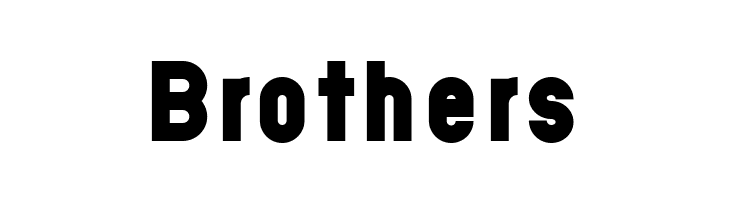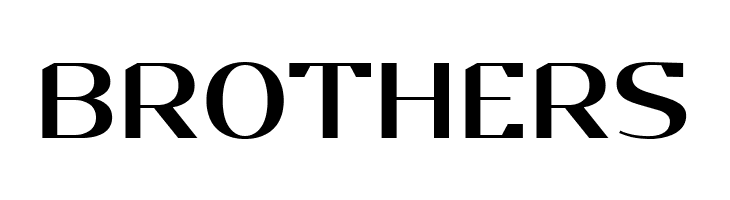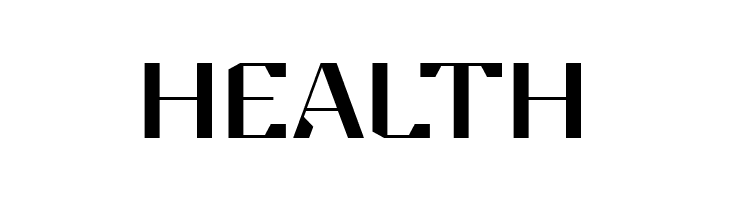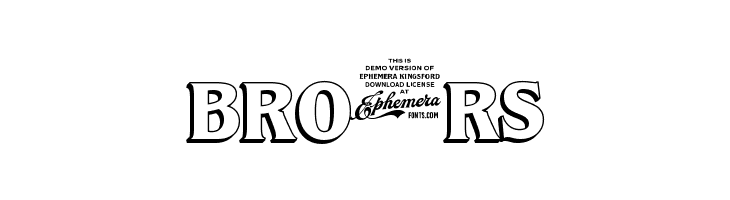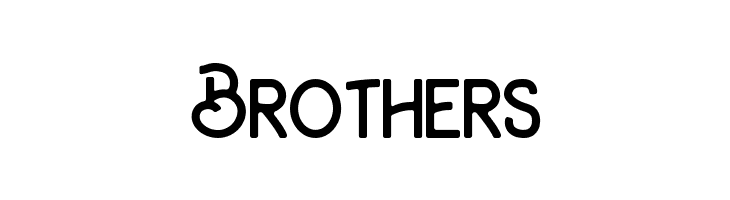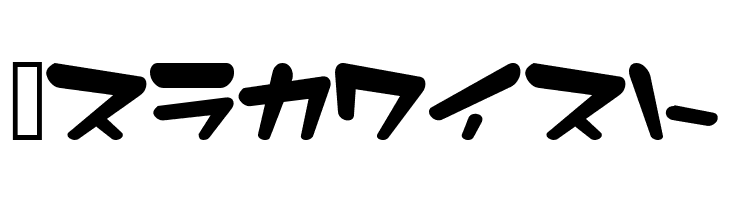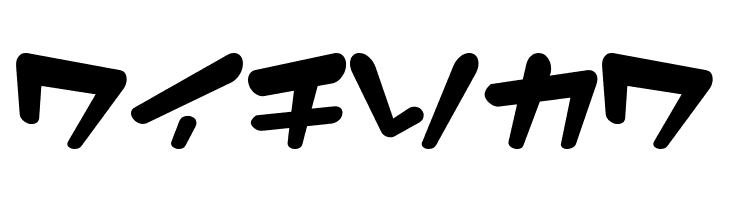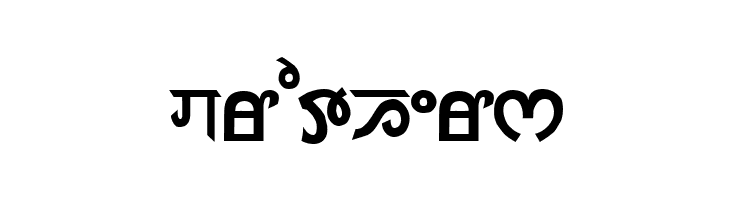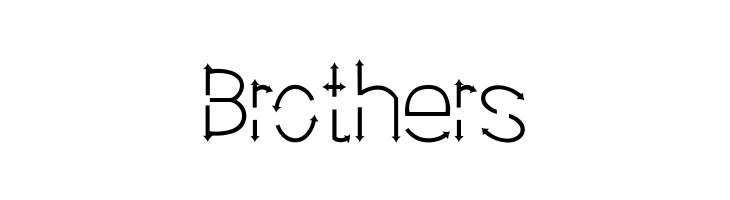
( Fonts by Sweet salty - Personal-use only. For commercial use please contact owner. ) A bold, decorative font with playful curves and rounded strokes. Download 31 Downloads@WebFont
( Emily Penley Fonts - www.emilypenley.com ) A dynamic, arrow-themed font with a modern and playful design. Download 53 Downloads@WebFont
( Fonts by Edy Pang Muhtar - Personal-use only. For commercial use please contact owner. ) A bold, modern font with sharp angles and smooth curves, ideal for striking designs. Download 30 Downloads@WebFont
( Fonts by YOFonts - Yasuhiro Yamaoka - yoworks.com - Personal-use only. For commercial use please contact owner. ) A bold, geometric sans-serif font with strong, modern letterforms. Download 110 Downloads@WebFont
( Fonts by Ilham Herry - Personal-use only. For commercial use please contact owner. ) A bold, decorative serif font with intricate details and flourishes. Download 92 Downloads@WebFont
( Fonts by Xerographer Fonts ) A modern, geometric font with bold, angular characters. Download 118 Downloads@WebFont
( Fonts by Xerographer Fonts ) A modern, geometric font with thin strokes and a sleek, futuristic style. Download 99 Downloads@WebFont